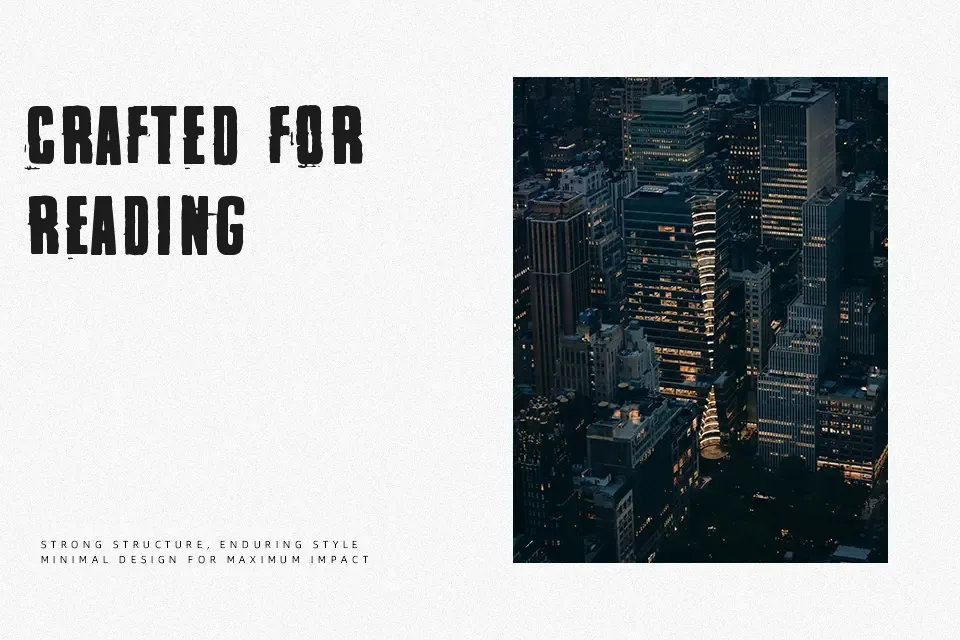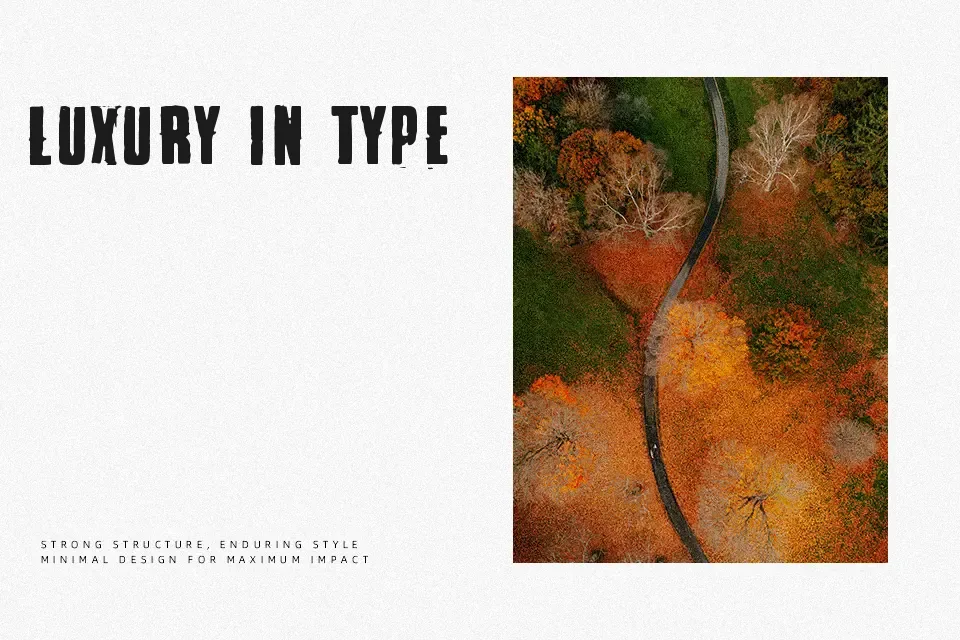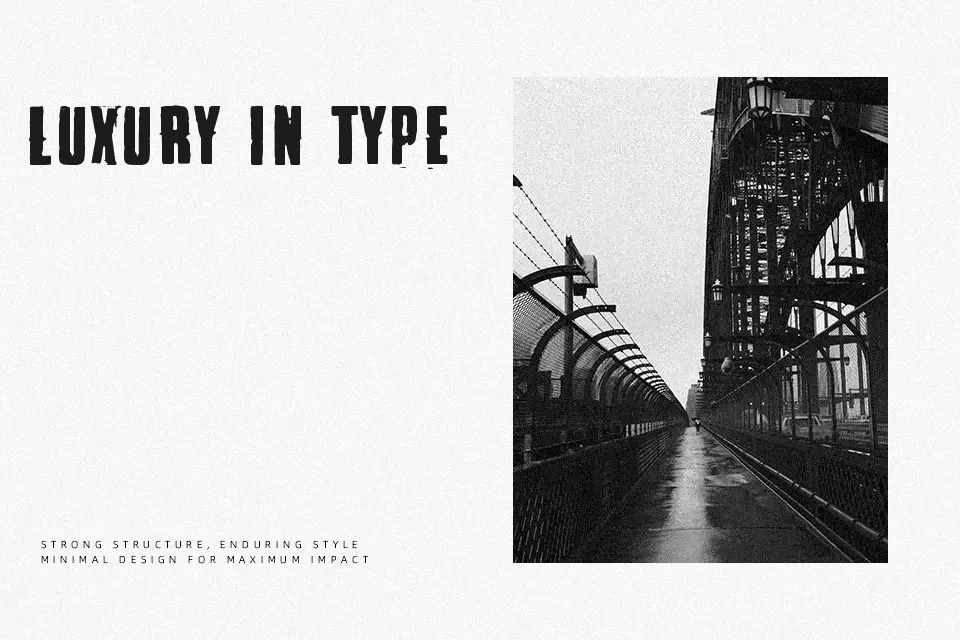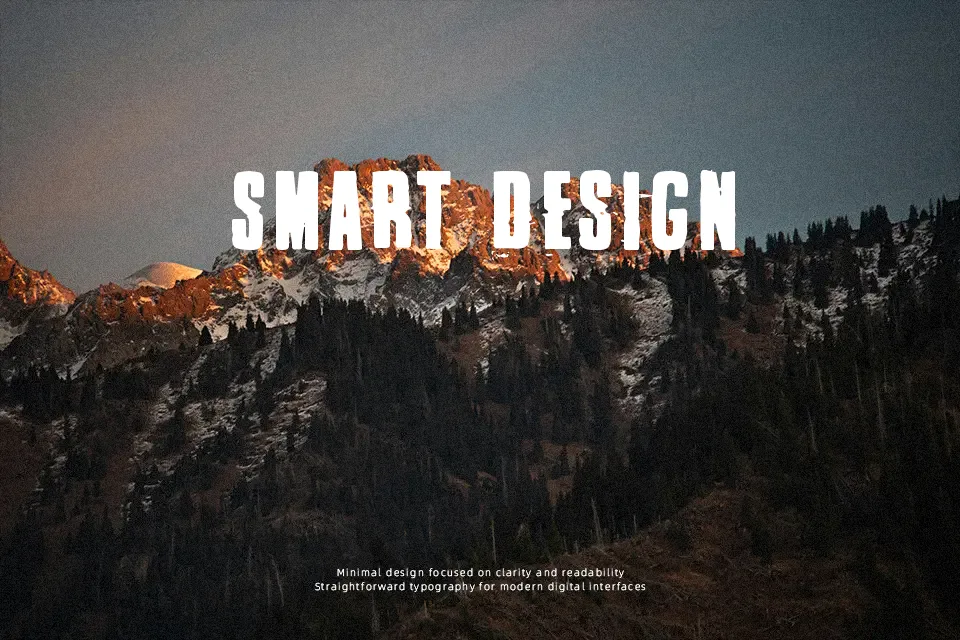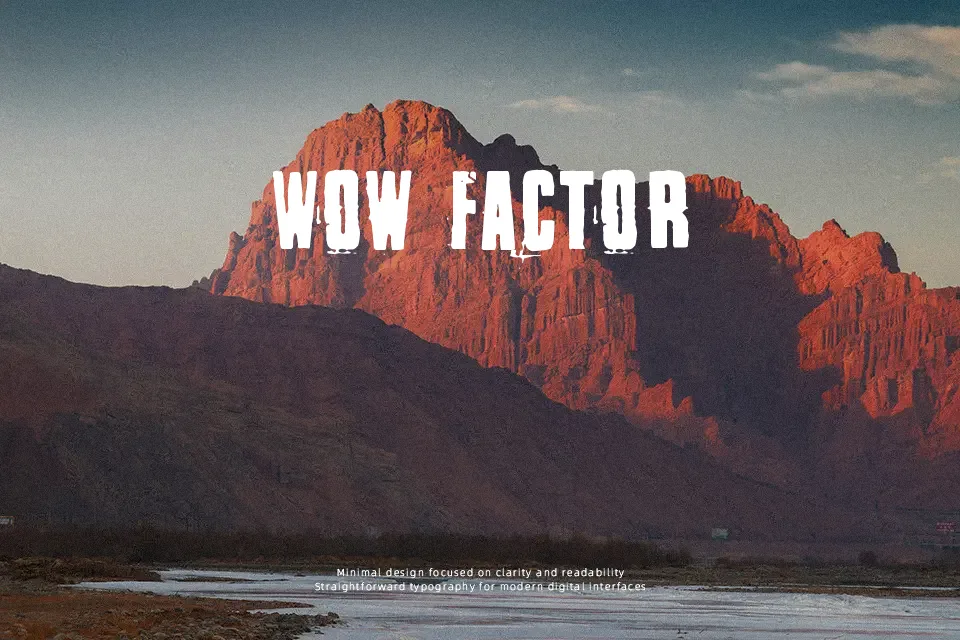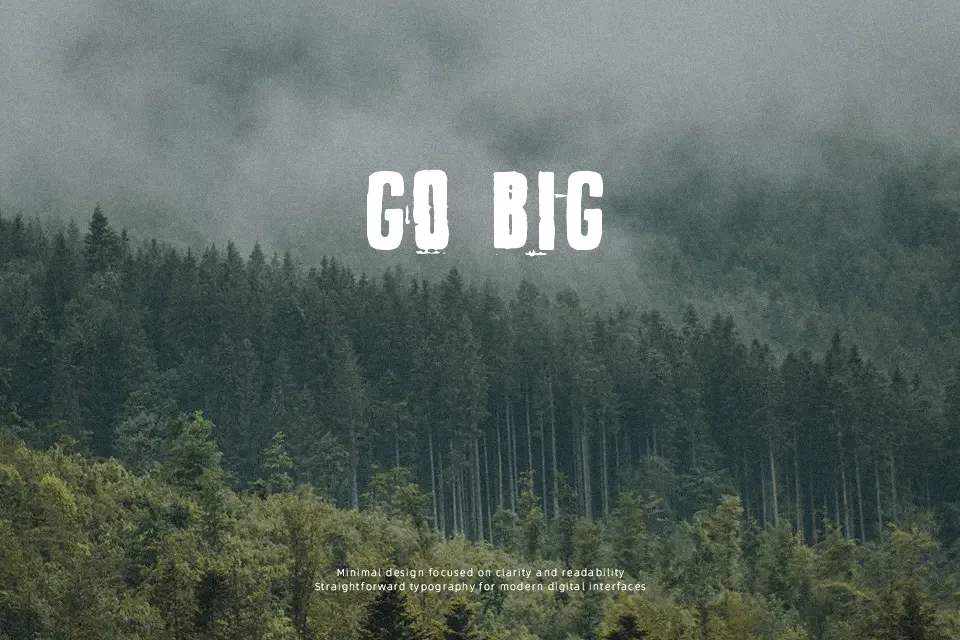
Blacklist Font
Blacklist Font by Juha Korhonen is a distressed display typeface that captures a raw, unpolished aesthetic. The characters feature jagged edges, irregular fading, and a textured appearance that heavily emphasizes a grunge style. Despite these intensive weathering effects, its robust underlying structure ensures the letterforms remain legible at larger scales.
This typeface excels in projects requiring a dark, dramatic, or edgy vibe. It performs exceptionally well for underground music posters or thriller film titles where a pristine look would feel entirely out of place. Conversely, the high level of distressing makes it unsuitable for formal contexts. It should be avoided for clean corporate branding, minimalist packaging, or dense body text where smooth readability is essential.
Underground music posters and album art
Gritty film titles and promotional graphics
Edgy apparel and merchandise design
Corporate branding and formal identity
Small body text requiring high legibility
Elegant or luxury packaging
Perfect for advertising, film, and headline, with a creative and decorative style.